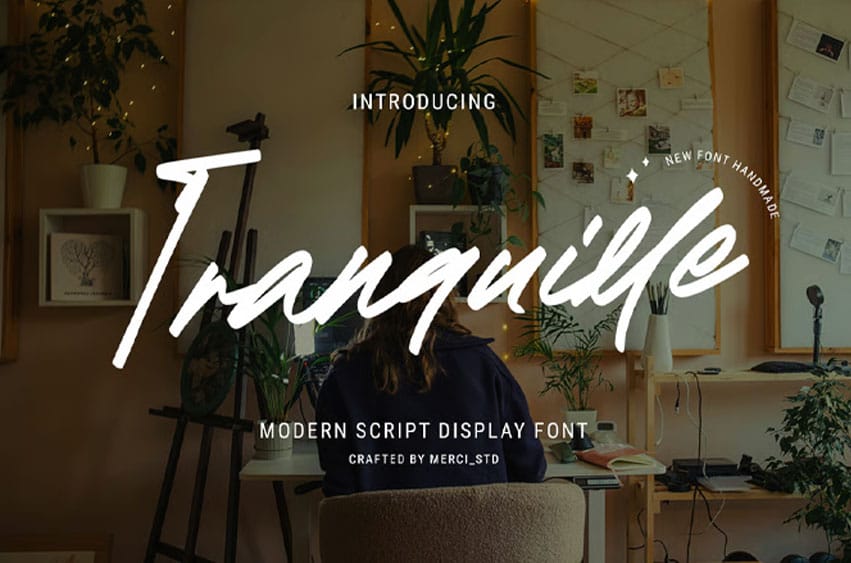
Tranquile Font is a modern script display font with elegant flowing strokes and a stylish handwritten touch. Designed for branding, invitations, social media, logos, and editorial projects, this font brings a smooth and sophisticated visual appeal.
Tranquile is perfect for creators looking for a graceful and expressive typography style.
- Uppercase Letters
- Ligature & Alternate Character
- Unique Hand-Drawn Style